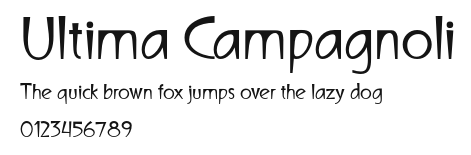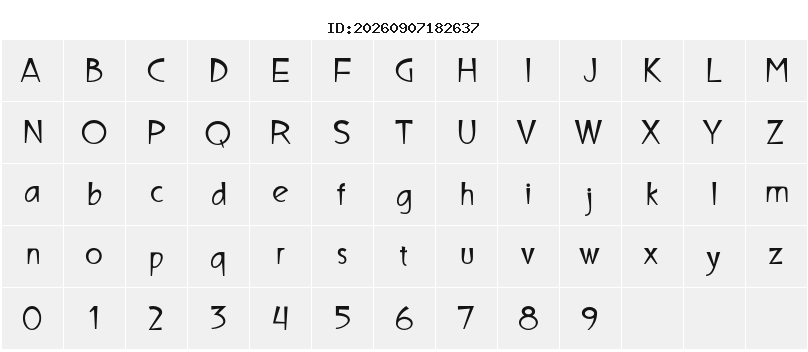
• Font Name: Ultima Campagnoli
• Designer: Manuel Campagnoil
• Manufacturer: Manuel Campagnoil
About Ultima Campagnoli.otf
Ultima Campagnoli.otf is a modern, elegant sans-serif font designed for ultimate readability and visual harmony. Perfect for branding, headlines, web design, and print materials.